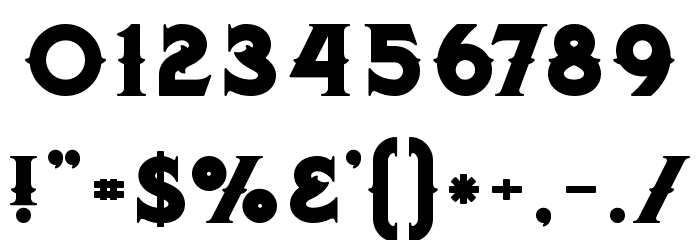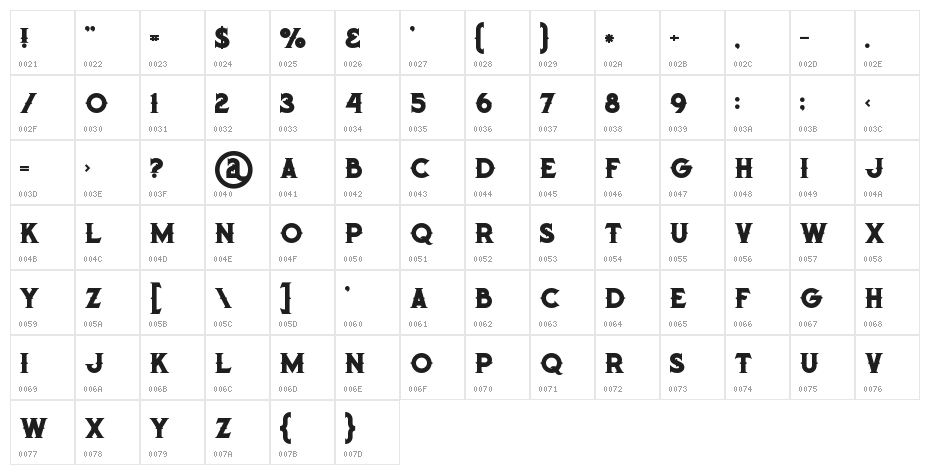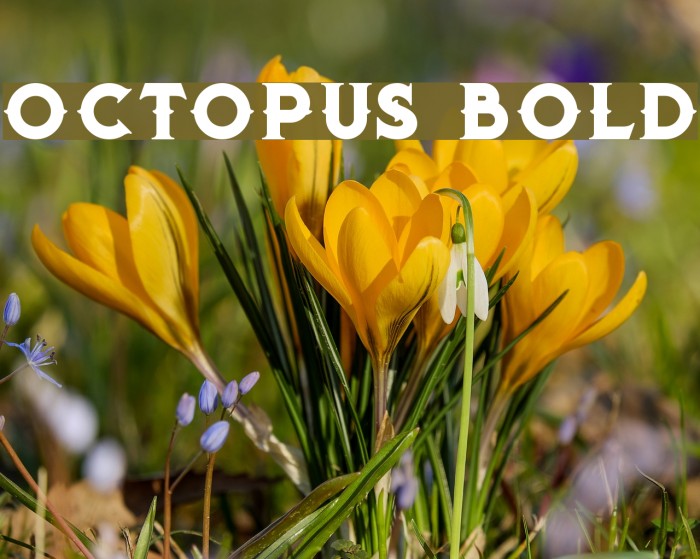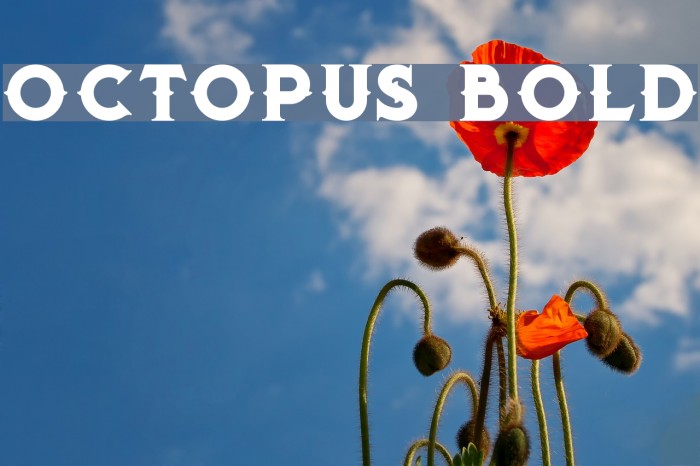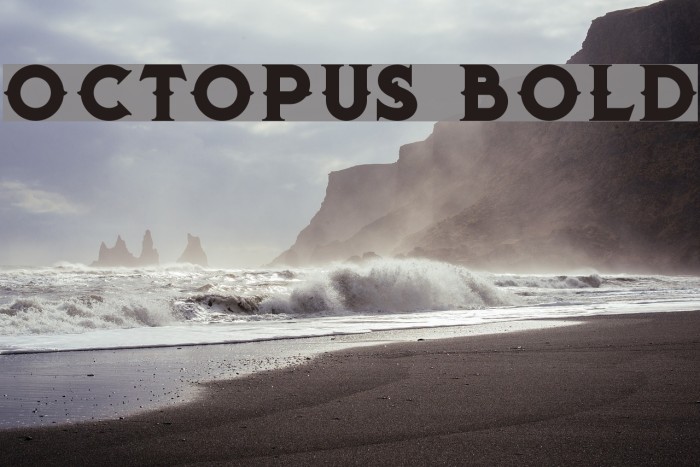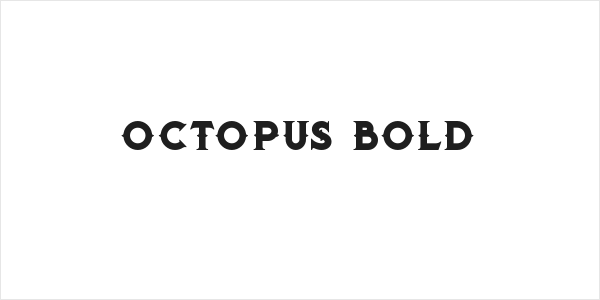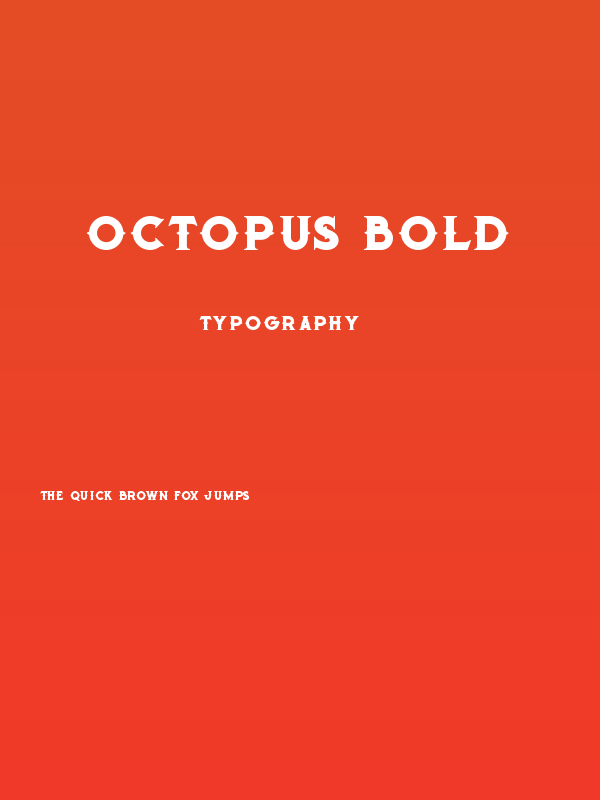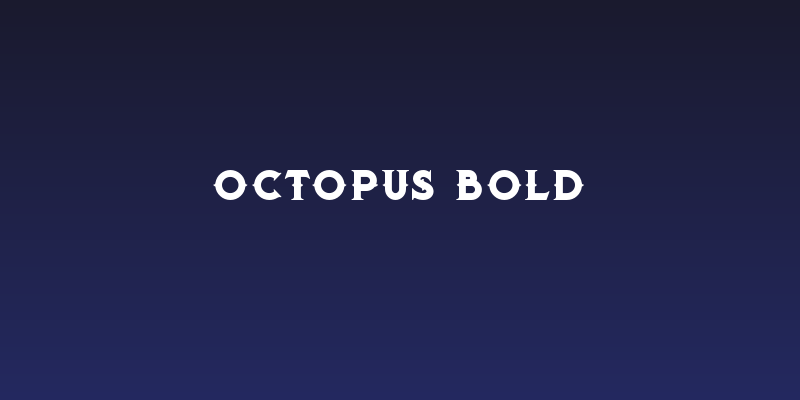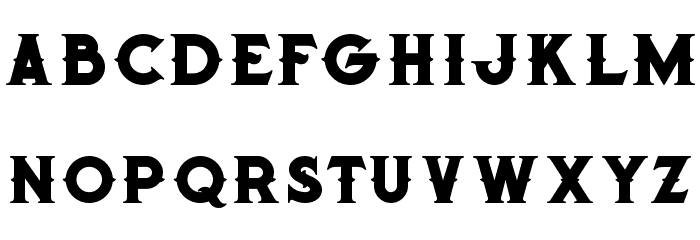
Octopus Bold Font
Octopus Bold Description
This bold, decorative font features strong, angular serifs and a distinct geometric style. The characters are robust and impactful, with a unique blend of modern and vintage elements. The uppercase letters are particularly striking, with a consistent weight and width that create a cohesive look. The numerals and special characters maintain the same boldness, ensuring uniformity across all text. This font's design is both eye-catching and versatile, suitable for a variety of creative applications.
| Proposed Projects | Ideal for branding, posters, headlines, and any project requiring a strong visual impact. |